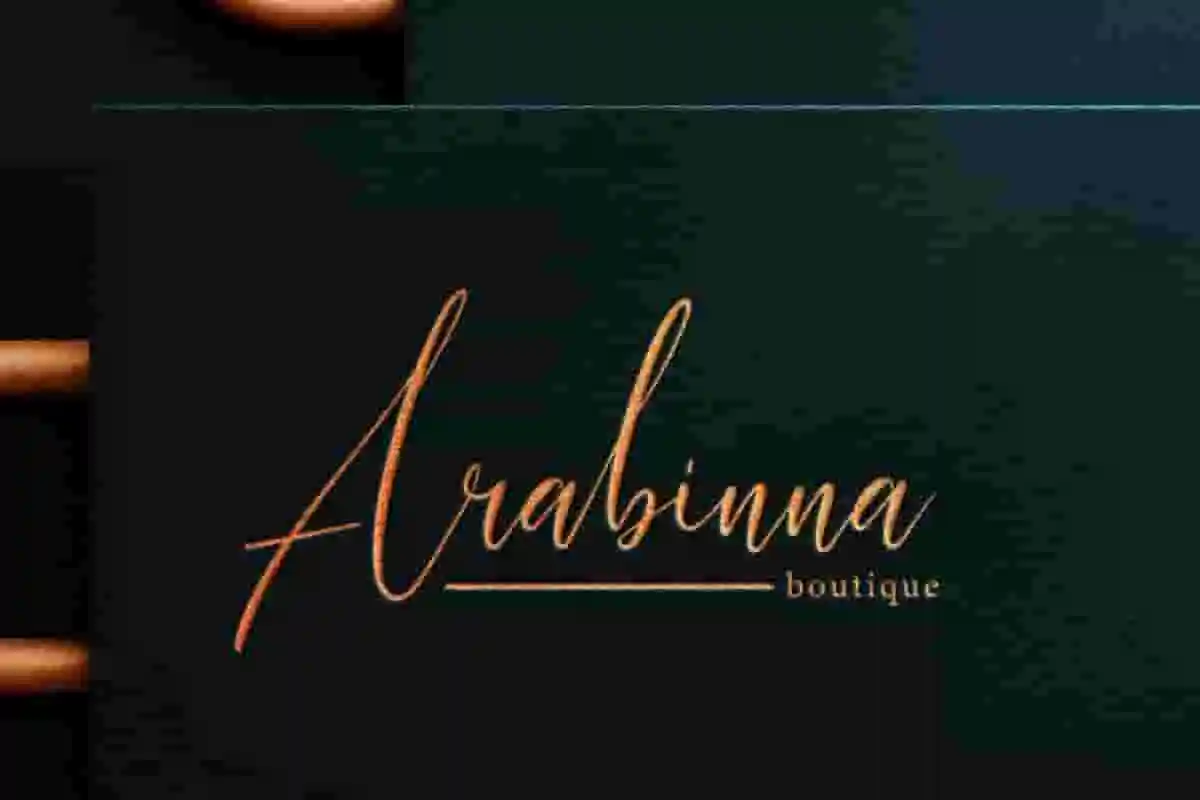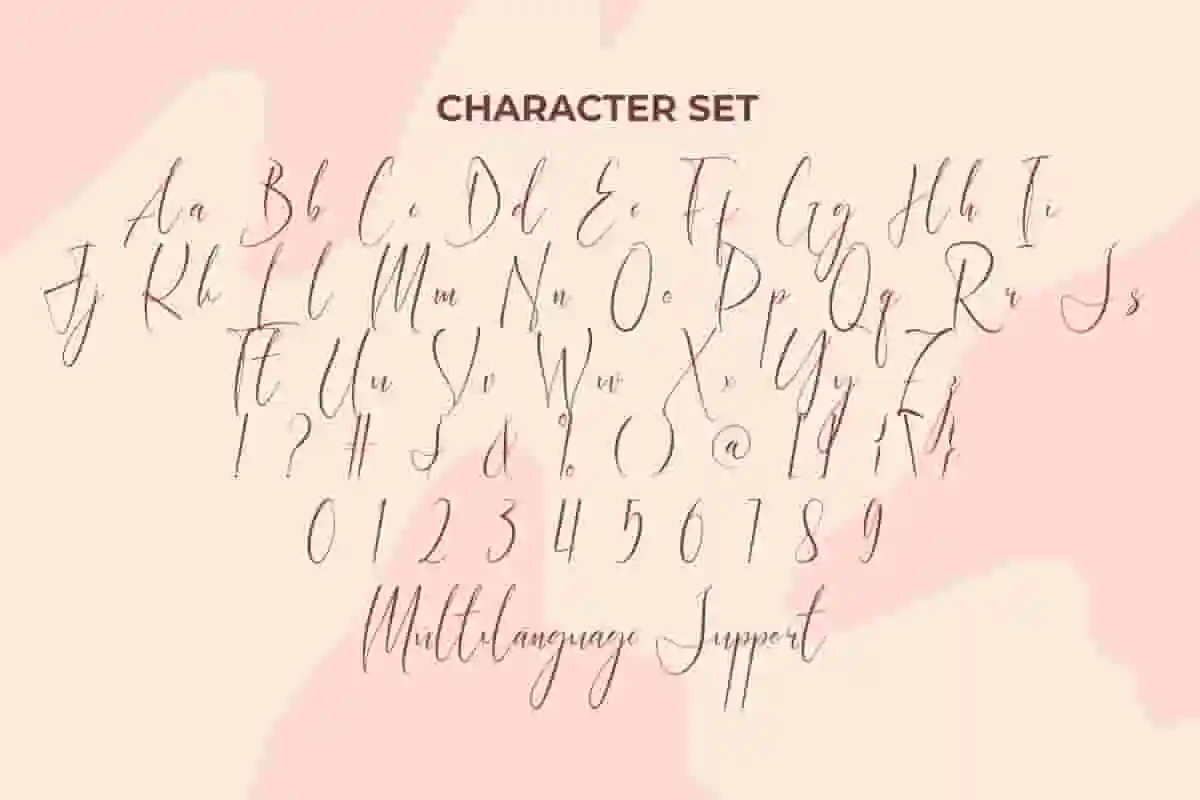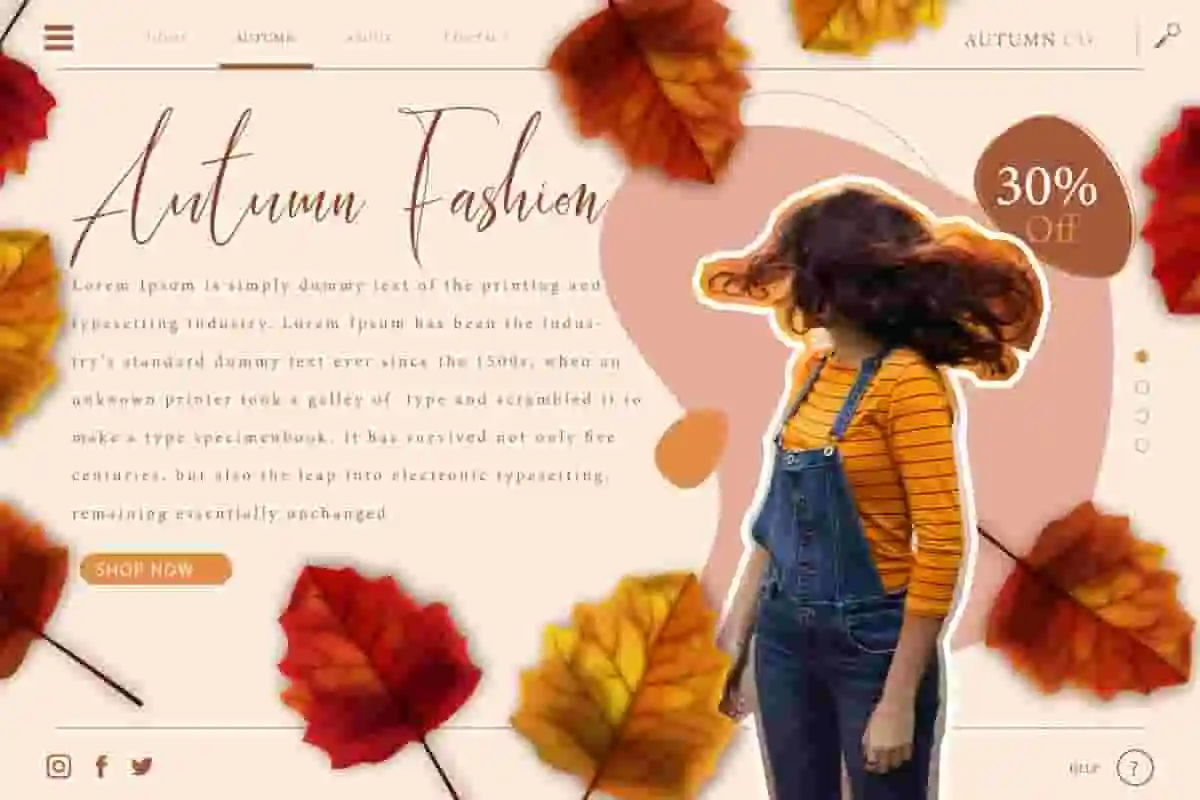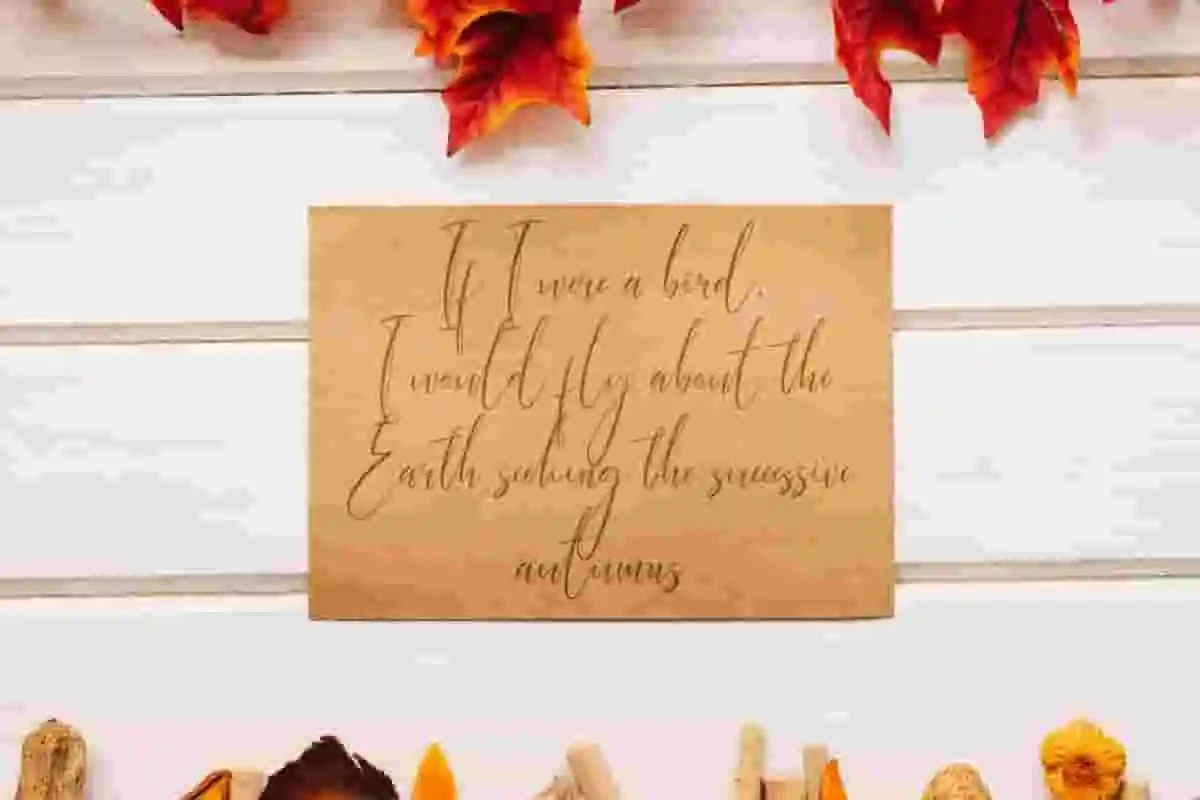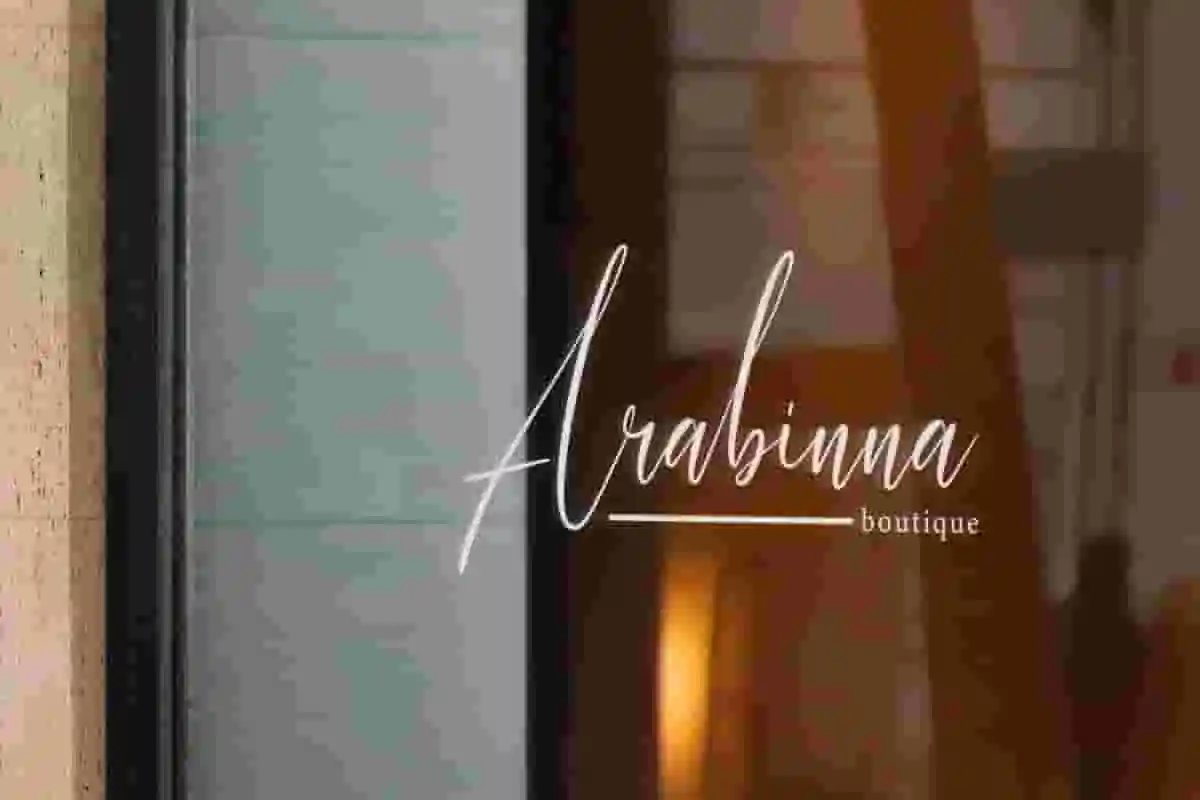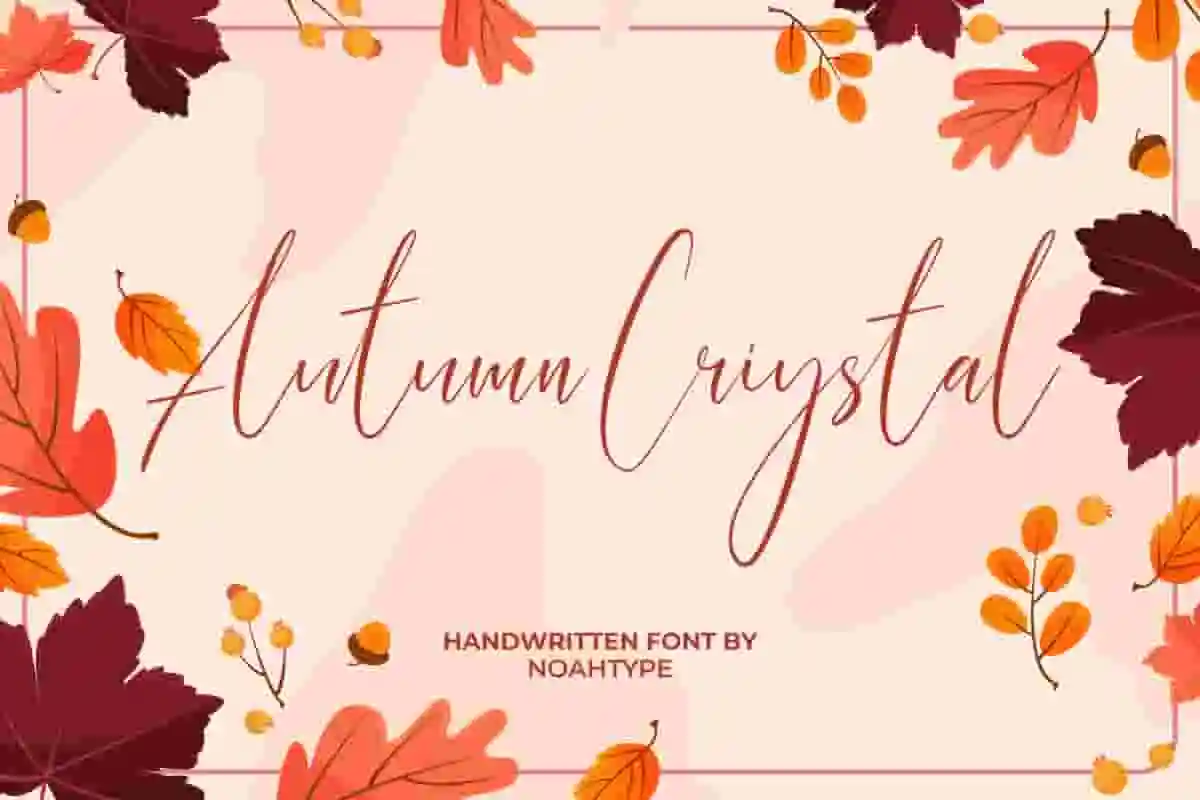
Autumn Crystal Font is a beautiful stylish calligraphic handwritten font by NoahType. The beauty of this font can maximize every design you make and add a luxurious impression. It will be suitable for any industries, such as advertisement, boutique, event or wedding organizer, fashion, florist, jewelry, printing, publishing, restaurant, and more!
Autumn Crystal Font includes full set of Uppercase and Lowercase Basic Characters, Numerals, Punctuation, Symbol, and Ligature. Go get and use this stunning font in your various designs, such as brand image, brochure, business card, custom design, gift box, greeting or thank you card, invitation, label, menu, poster, quote, screen printing, signage, stationery, website, and more!